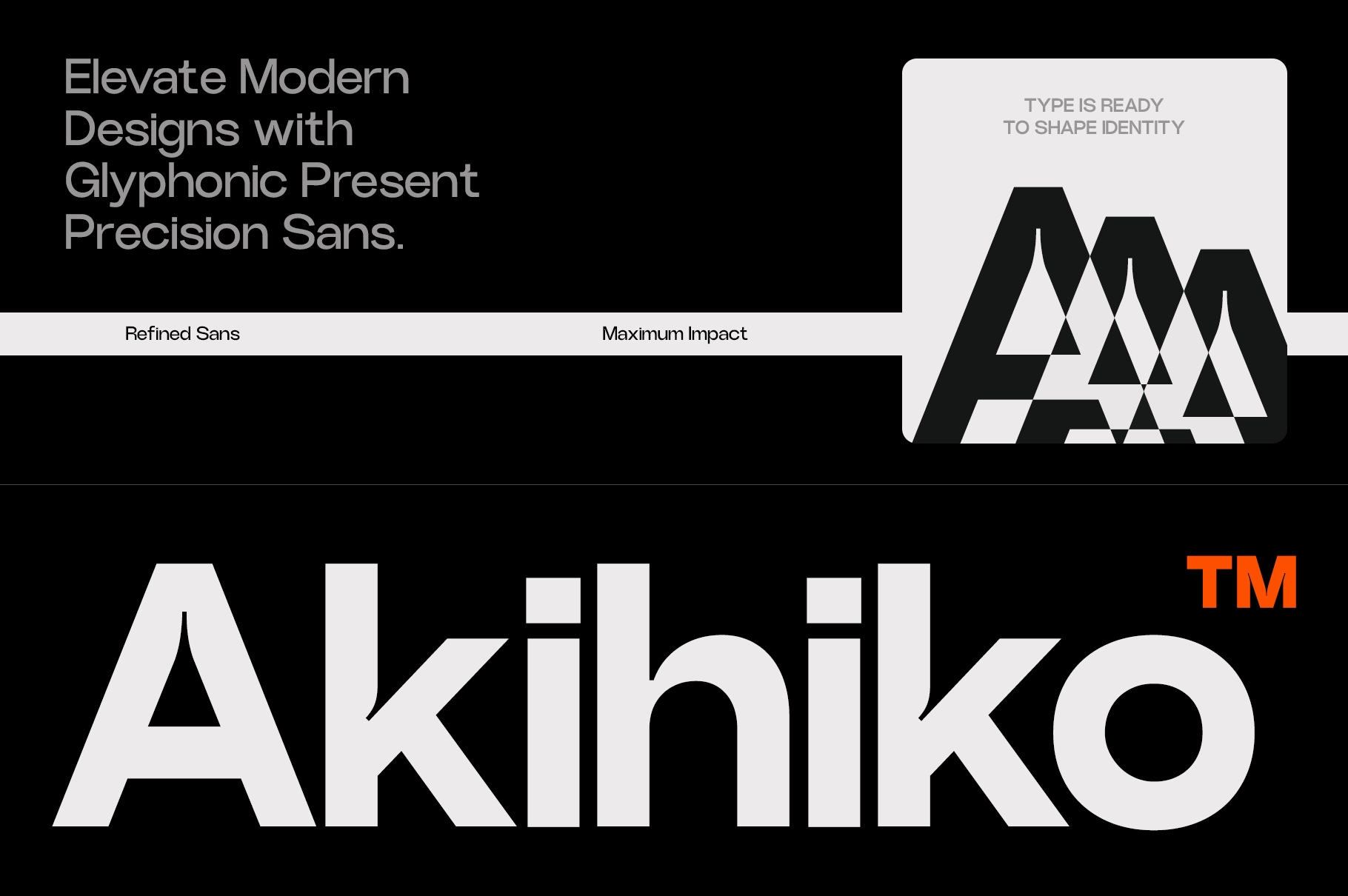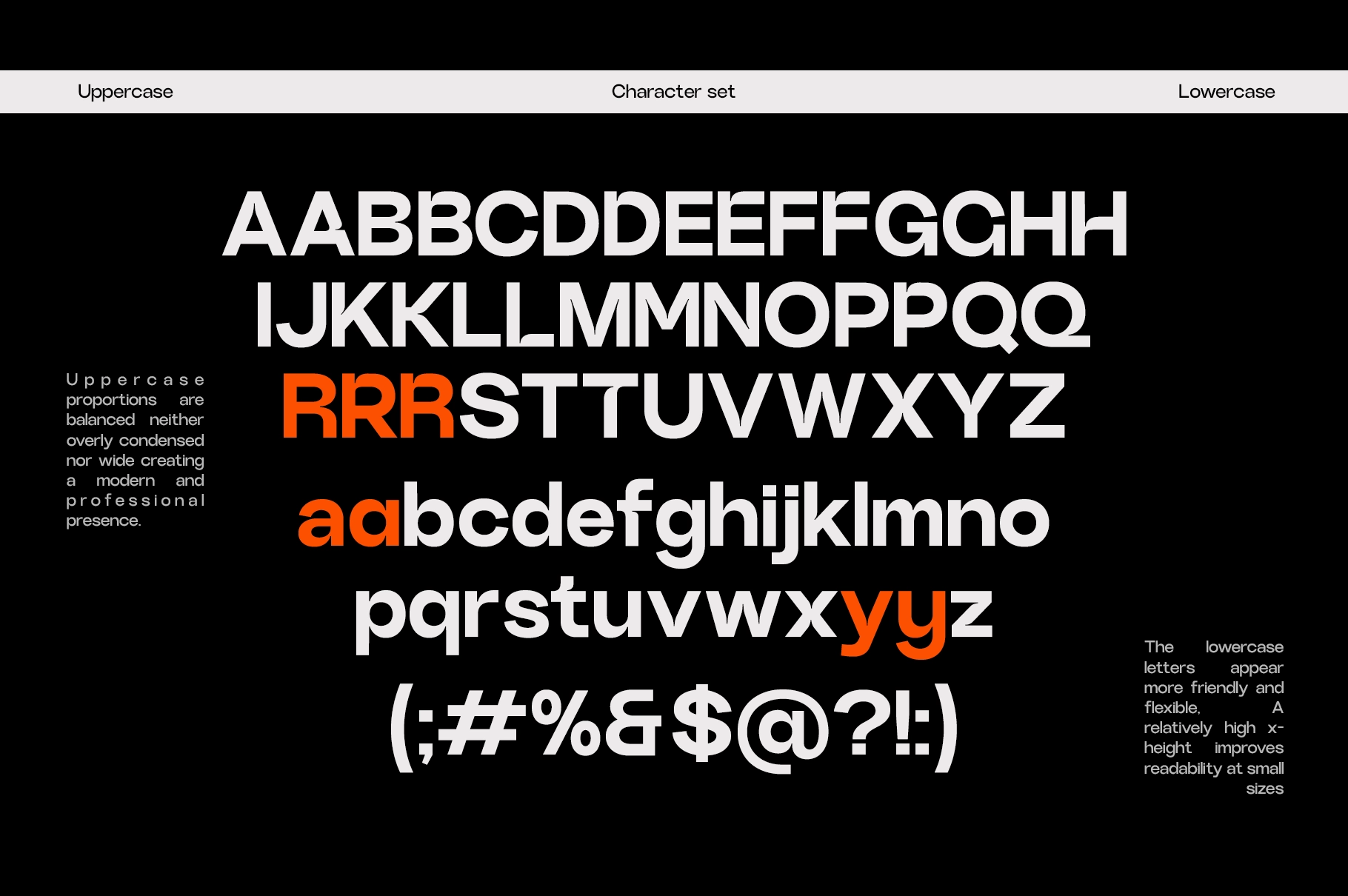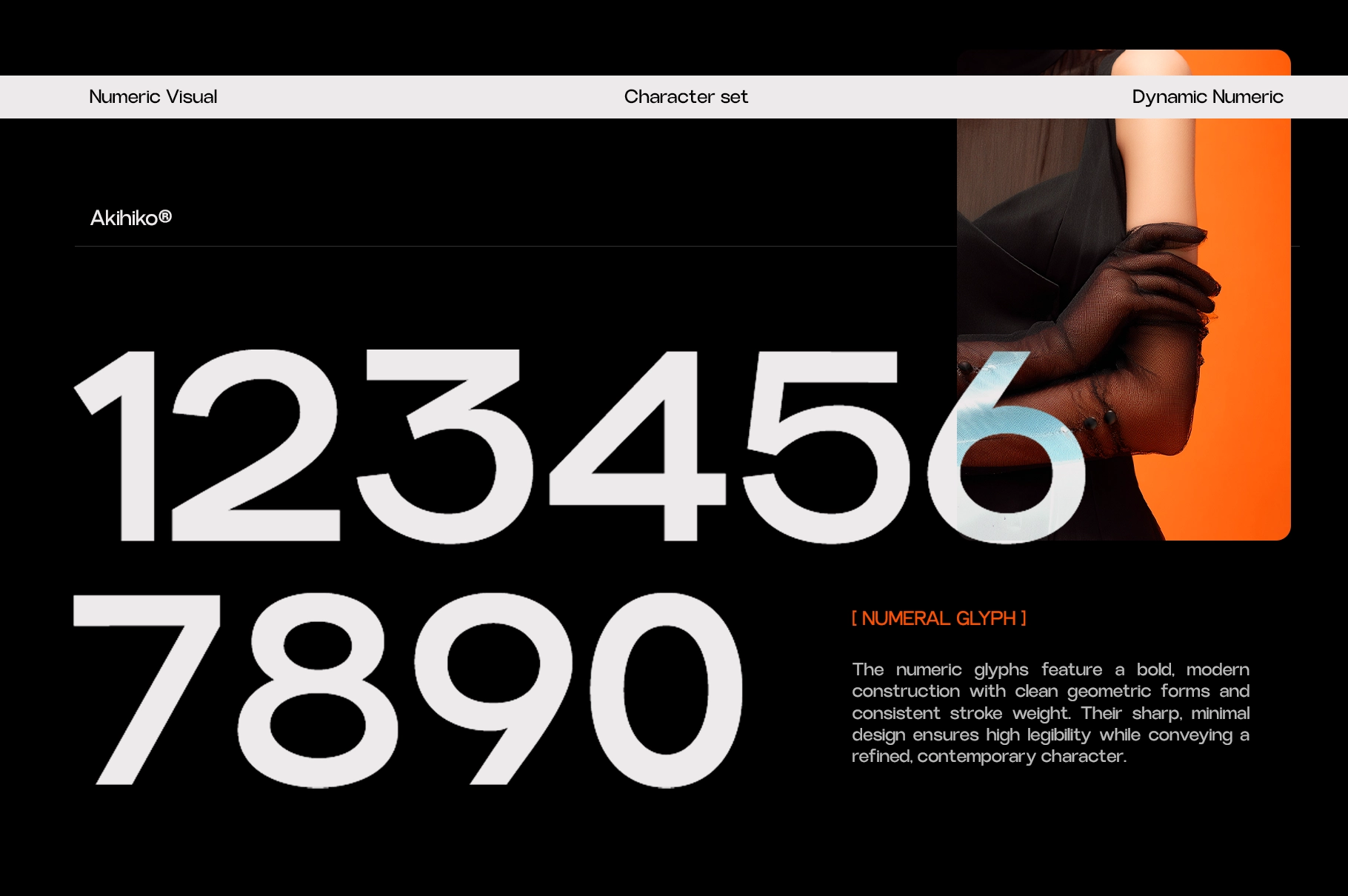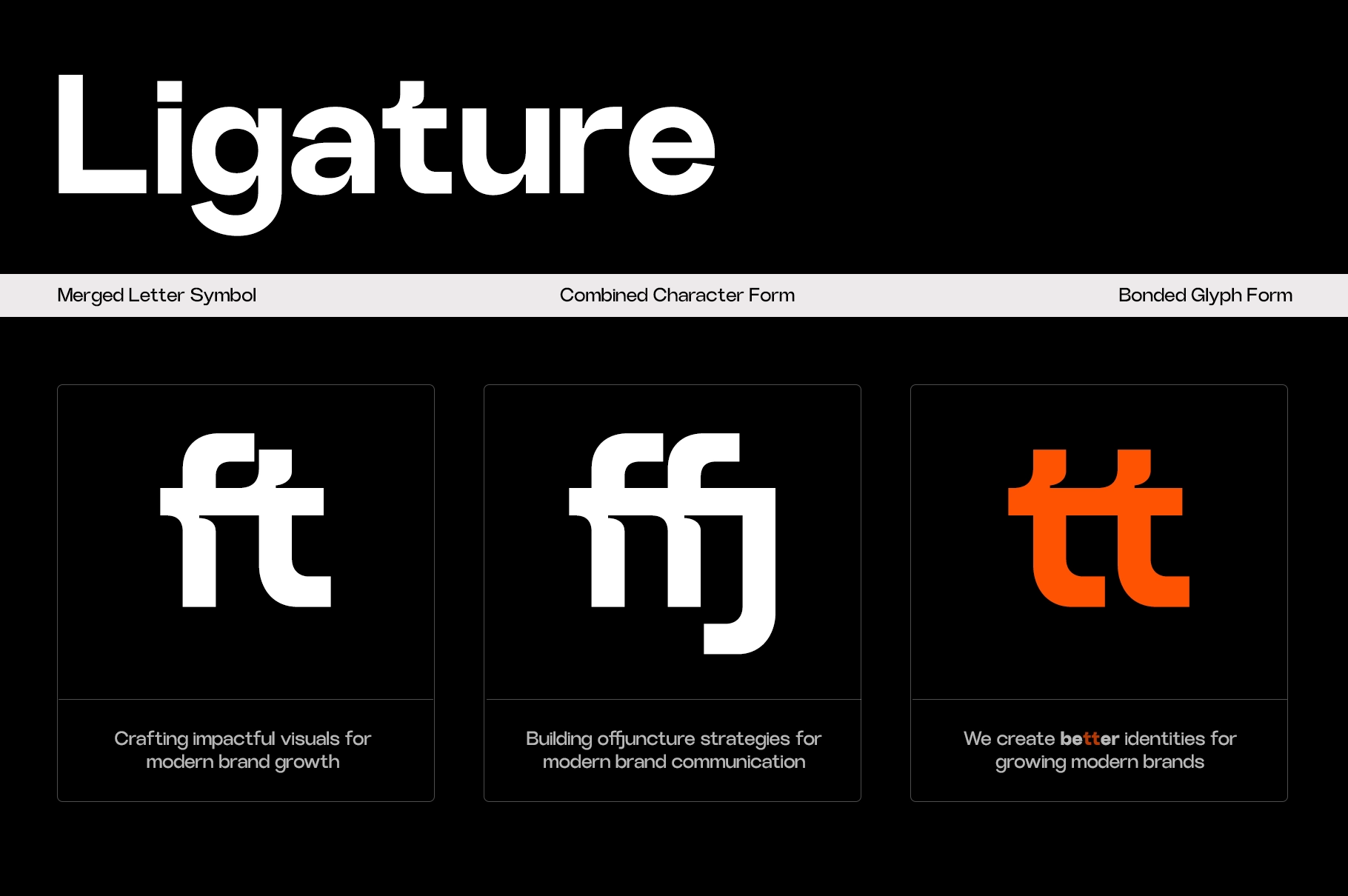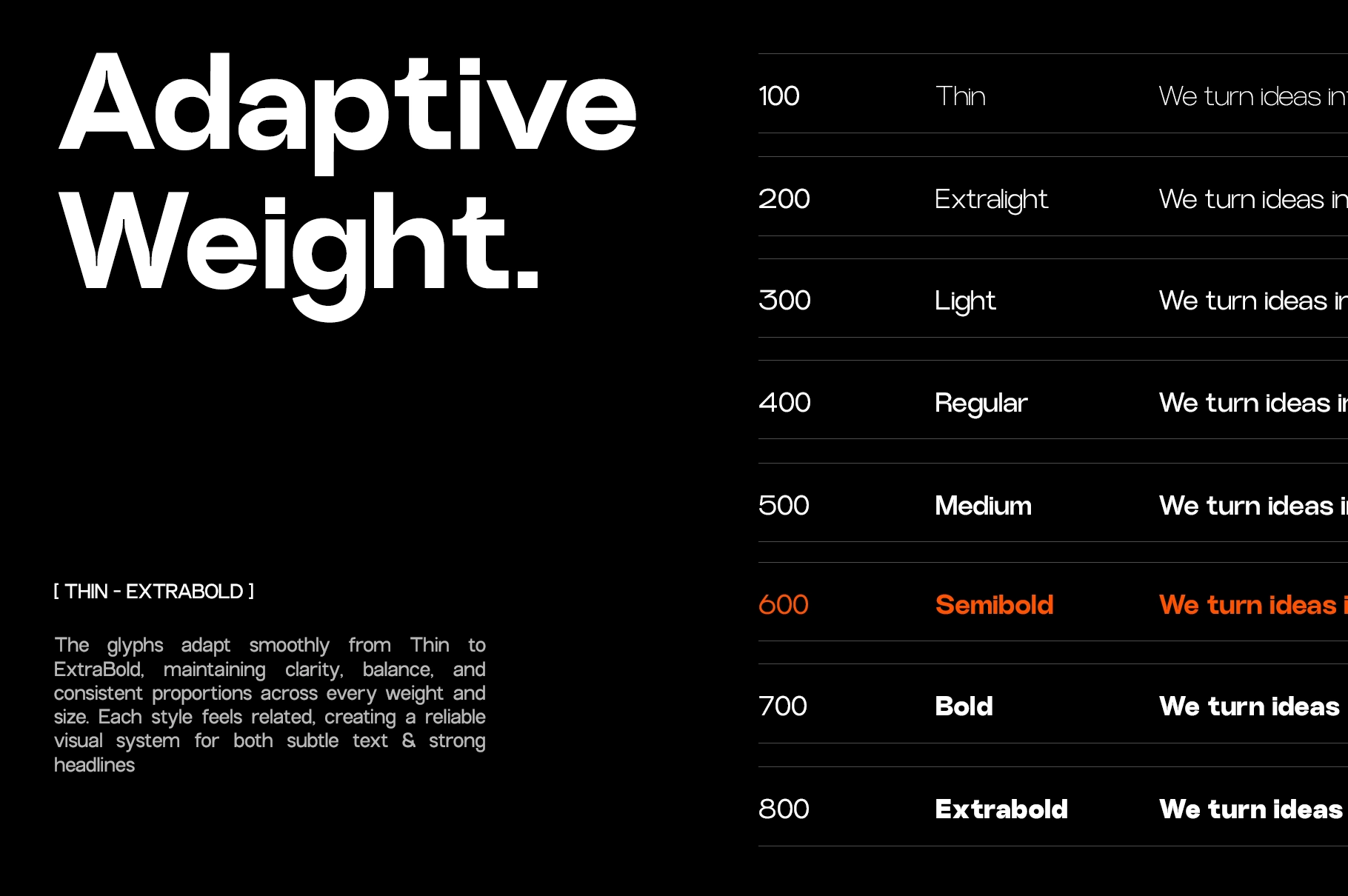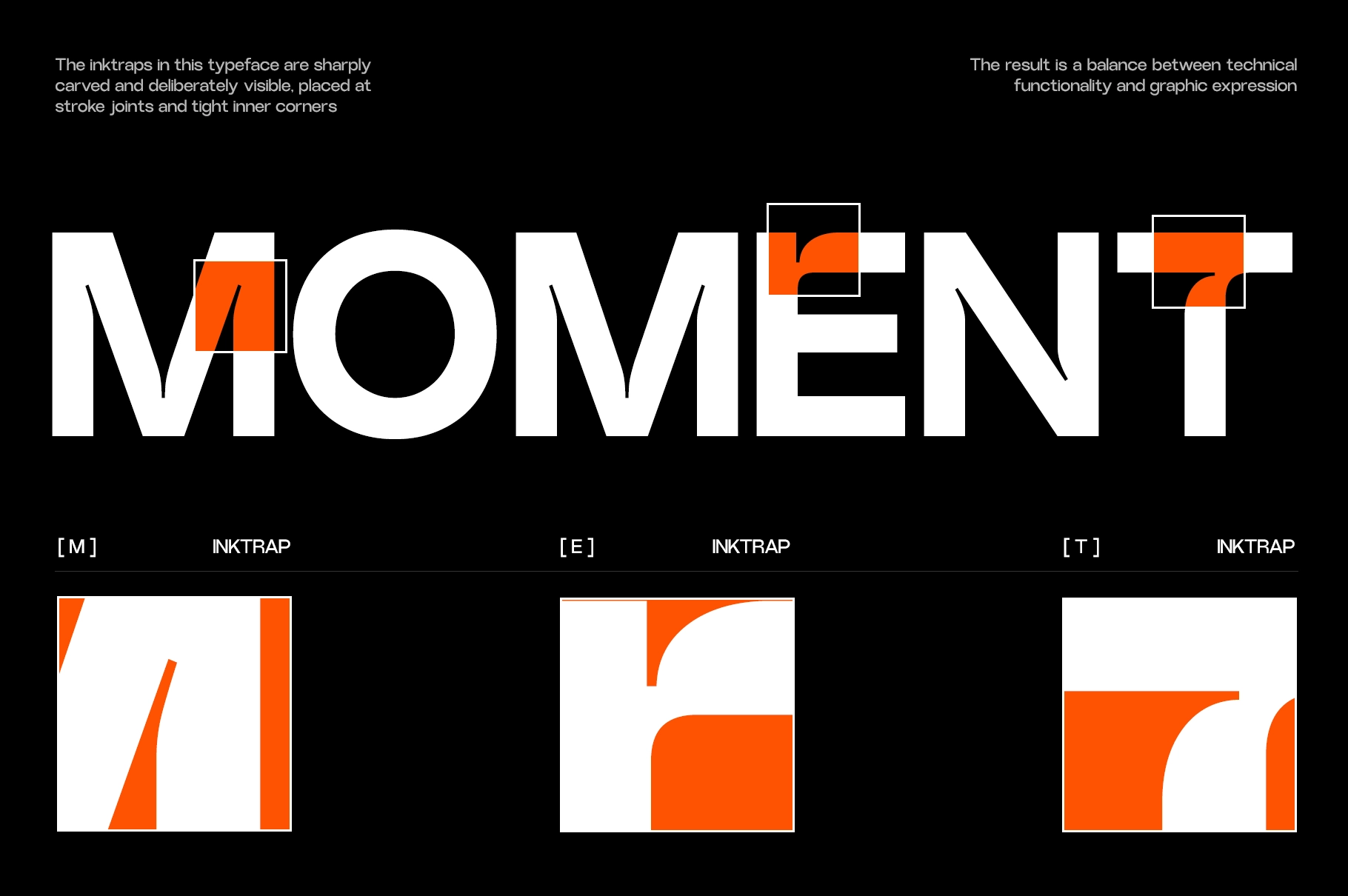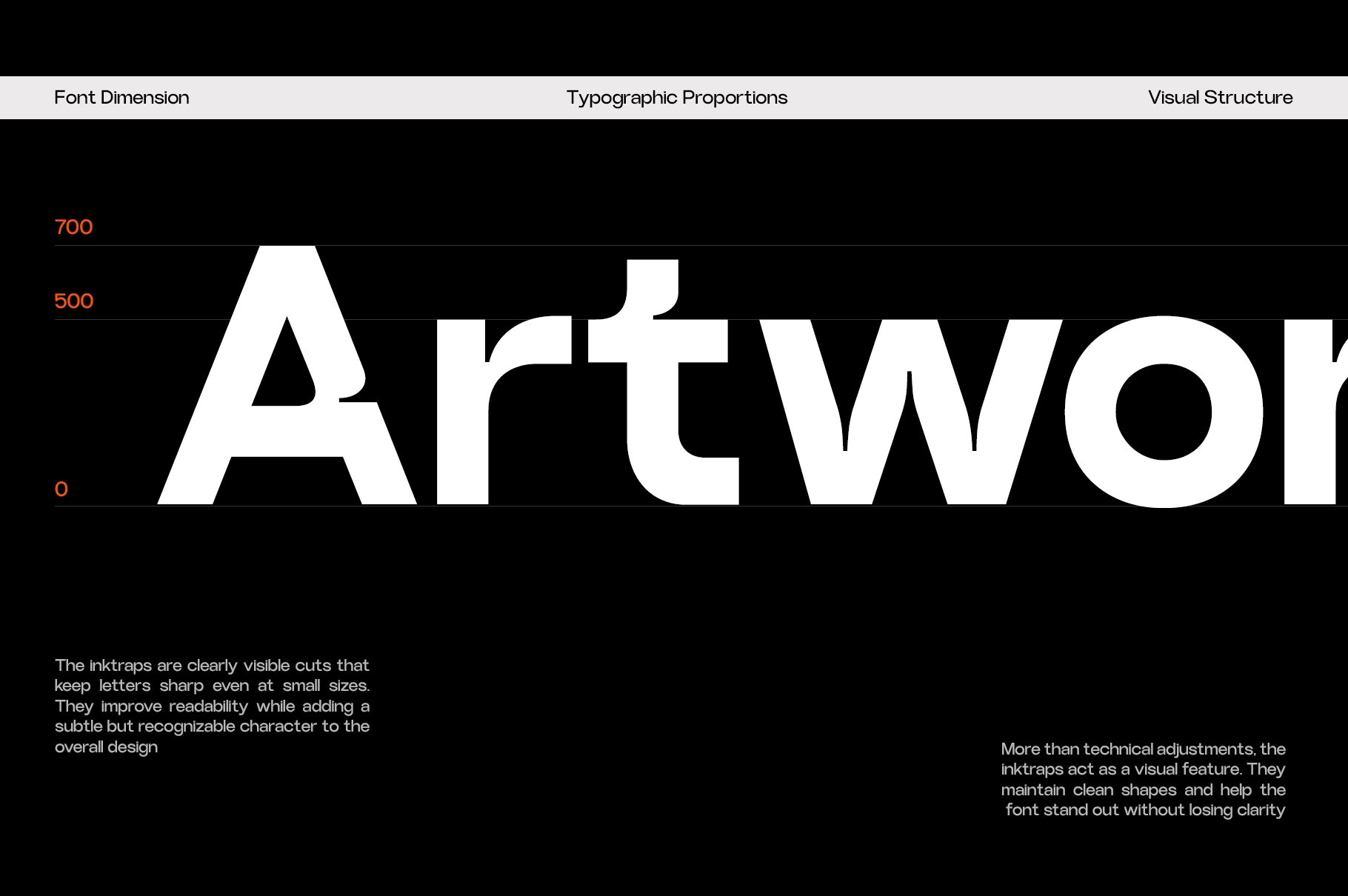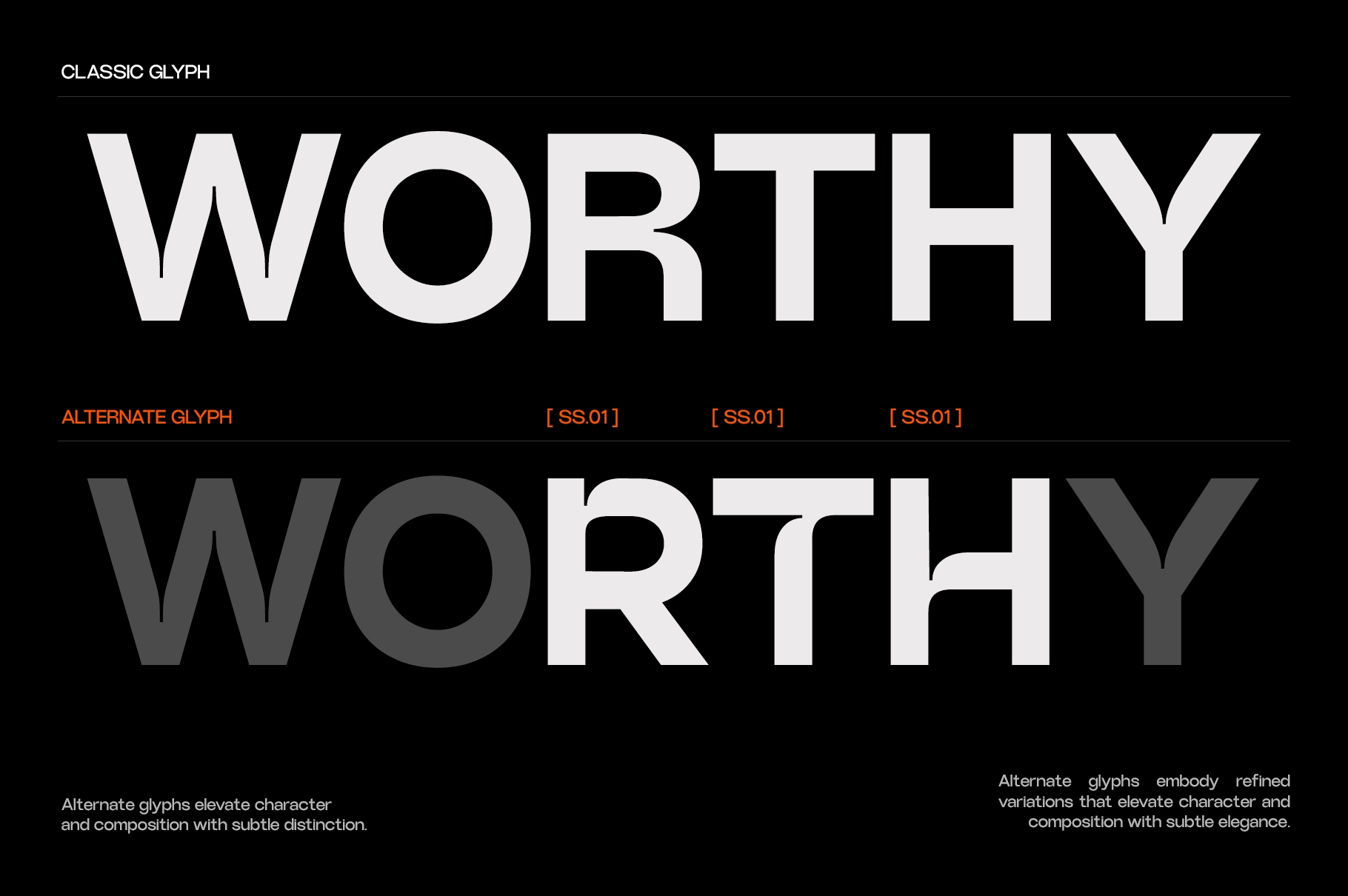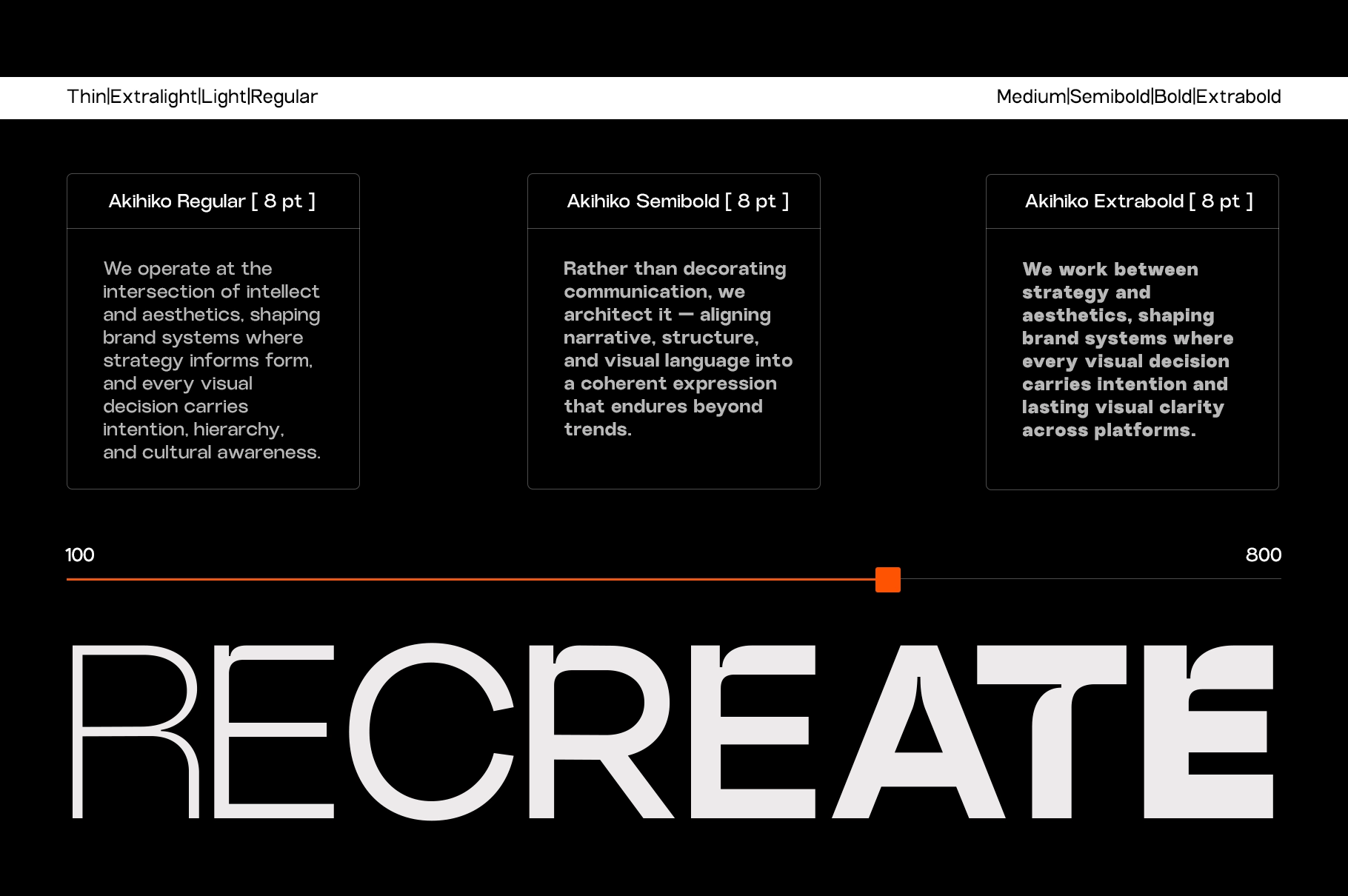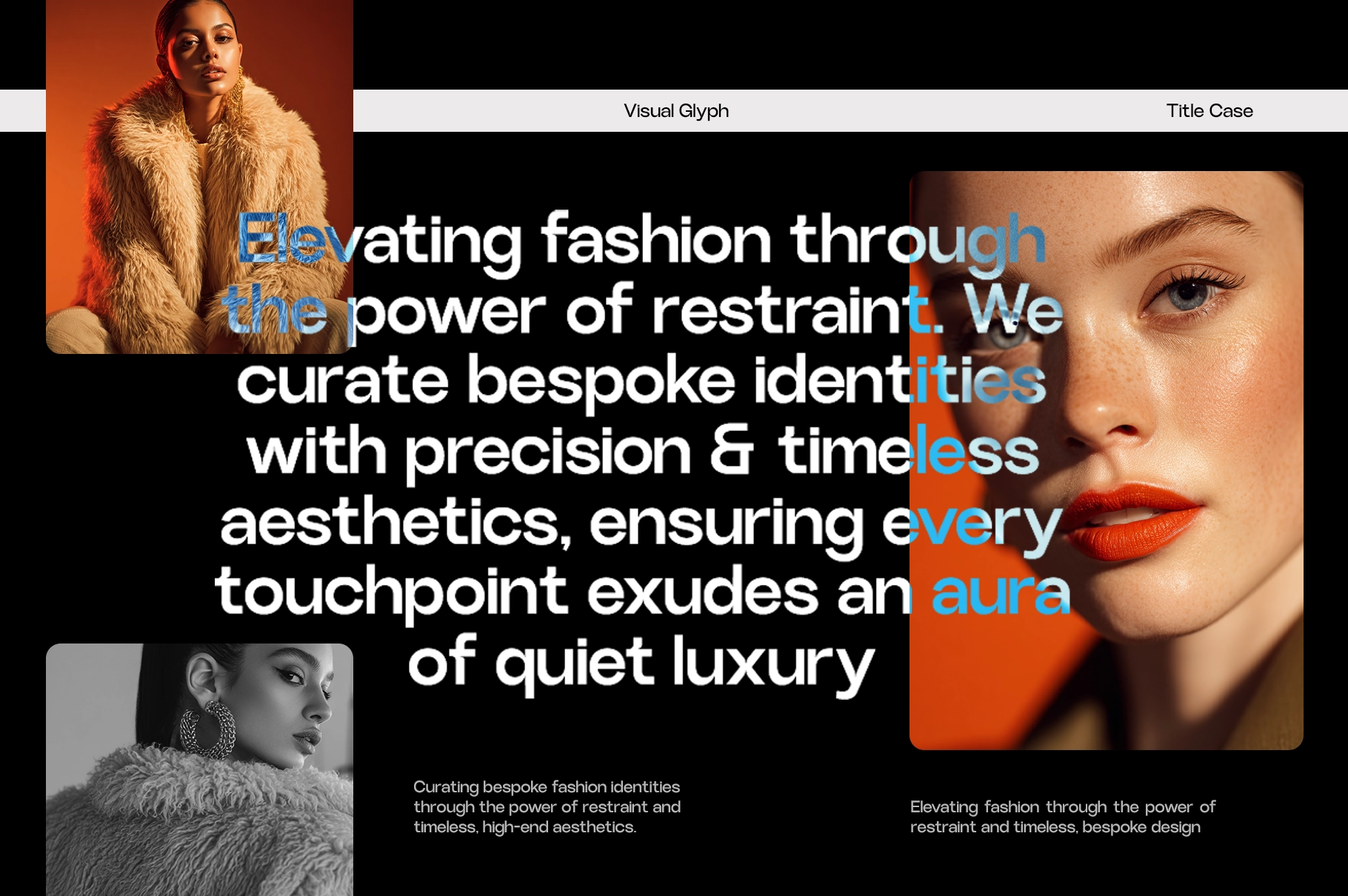
GC Akihiko - Modern Geometric Sans Serif Font
This sans serif typeface is built with crisp proportions, sharp inktraps, and a controlled geometric structure that gives every line a clean, graphic edge. Its forms are direct, clear, and highly legible, with enough character to carry headlines while keeping smaller text steady and composed. The variable weight system adds range without breaking the consistency of the family.
Akihiko fits brand identities, editorial layouts, packaging, interface design, corporate presentations, poster systems, social media campaigns, website headers, signage, lookbooks, app screens, and product showcases. Ligatures add a tighter visual flow in selected wordmarks, while the numerals and punctuation keep the same precise tone across pricing, data, captions, and display copy.
• Variable Font: Thin - Extra Bold
• Numbers & Punctuation
• Ligatures